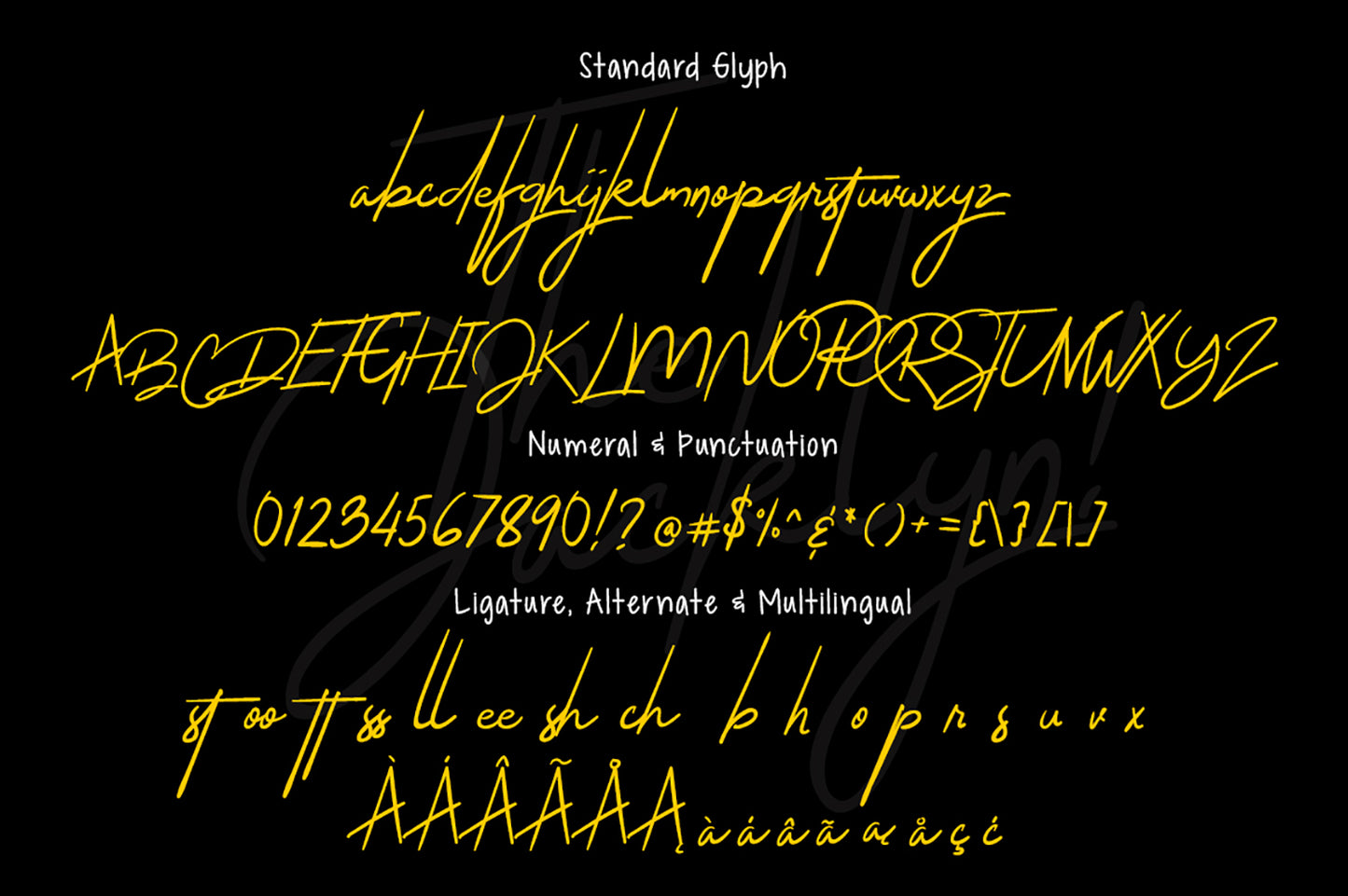
Take a look at this dazzling free the jacklyn signature font. This font file was found from the amazing source called Pixelify. Showcase your designs like a graphic design pro by adding a new touch with this fancy font.